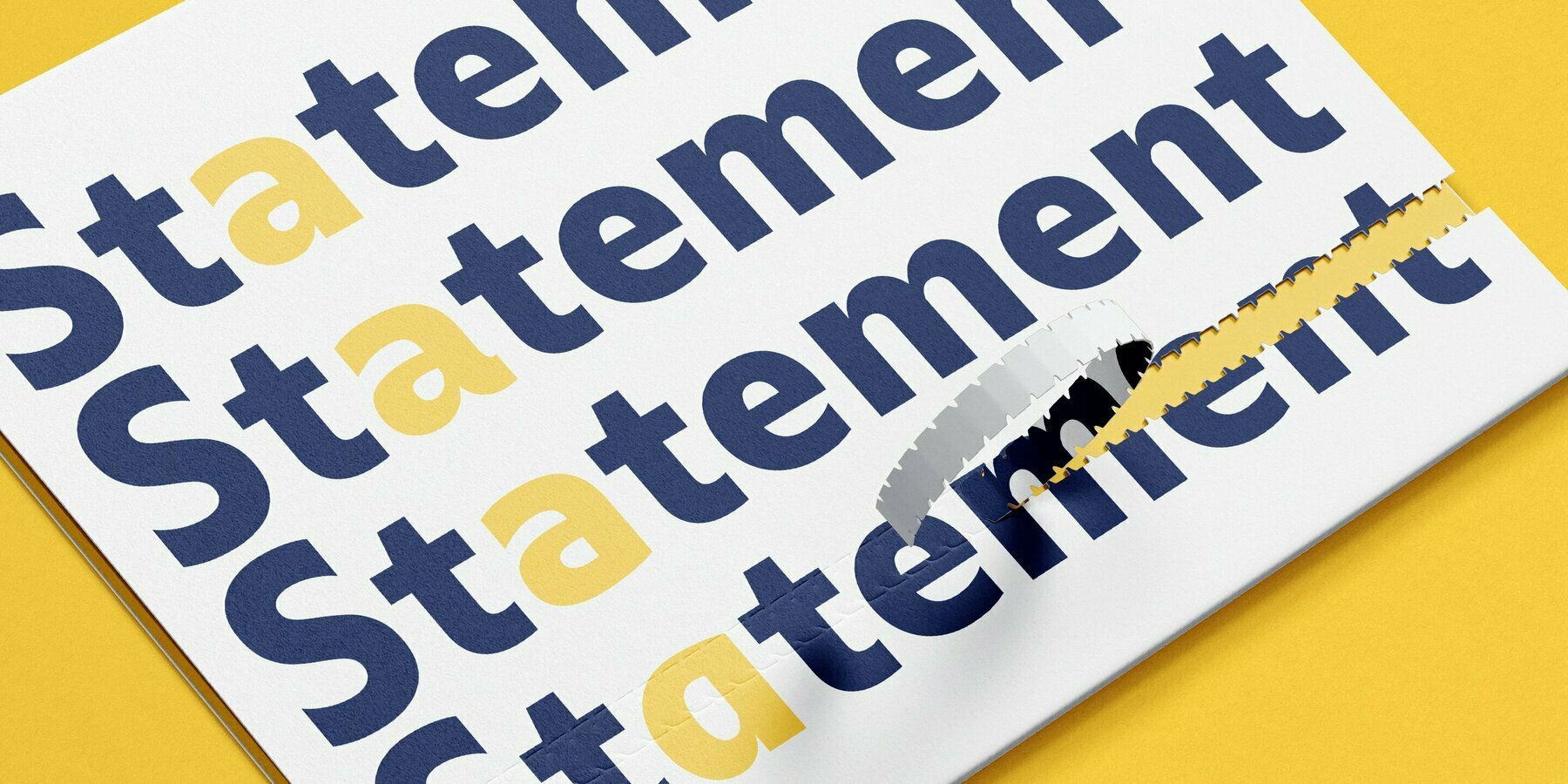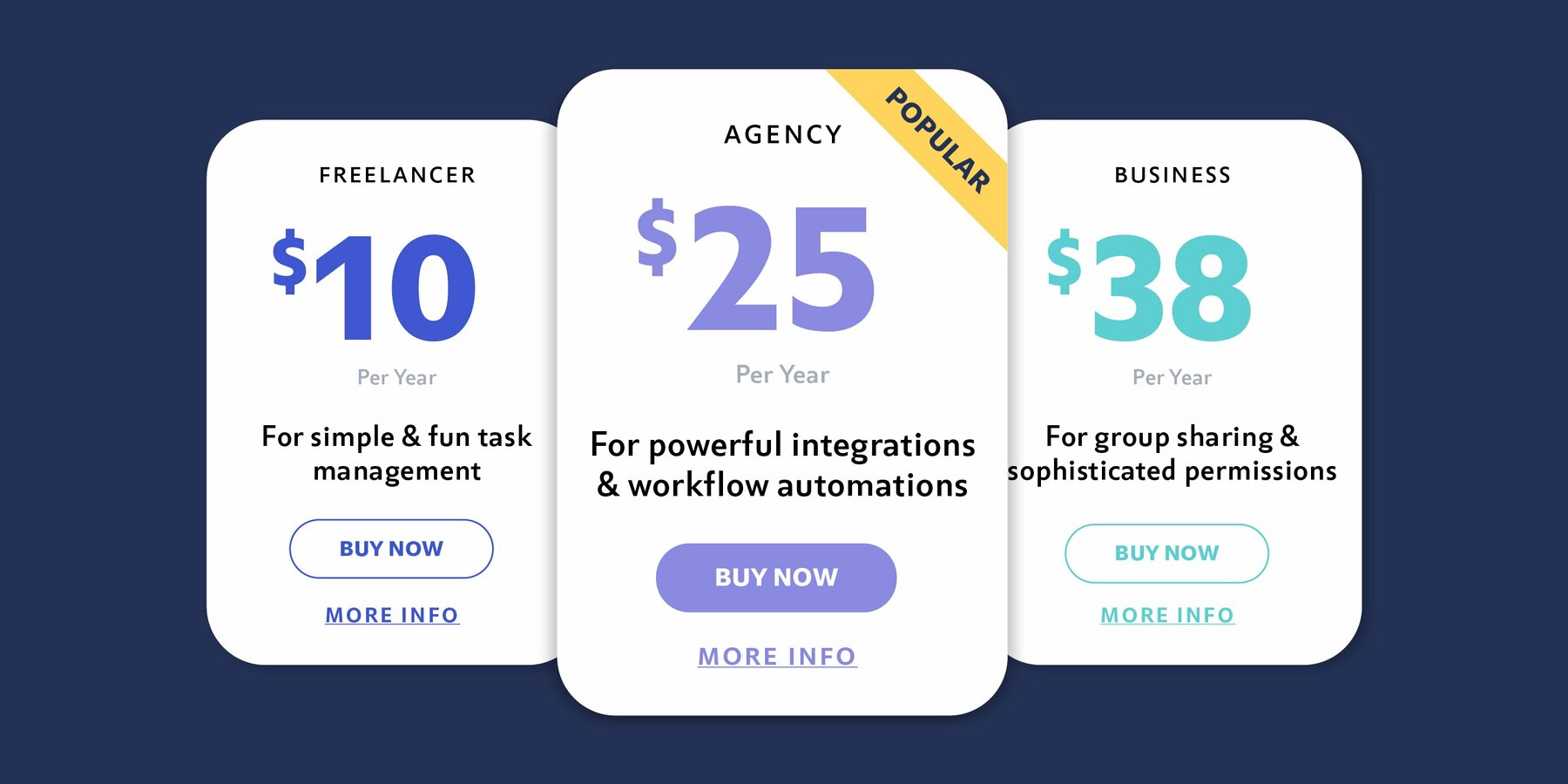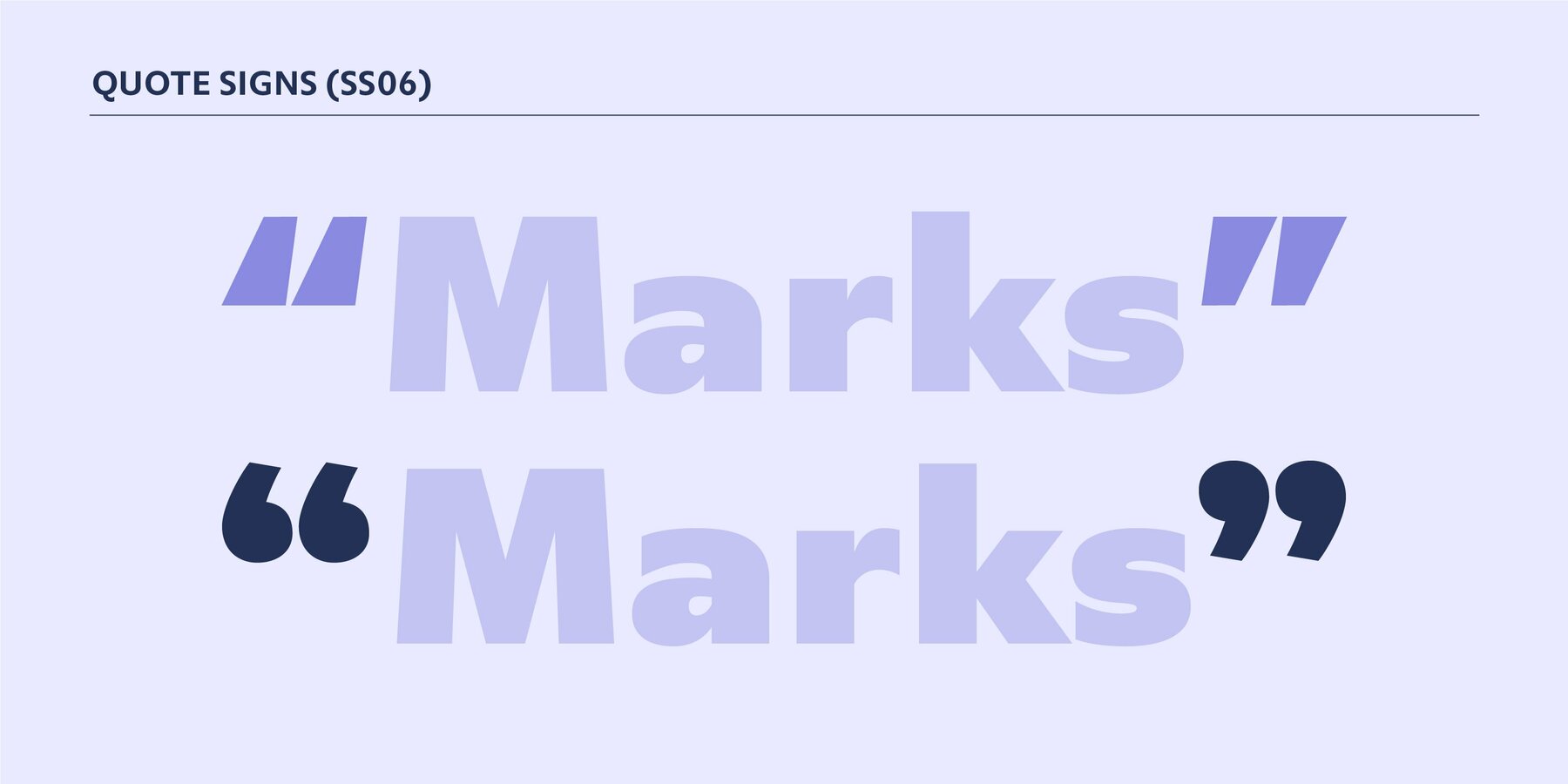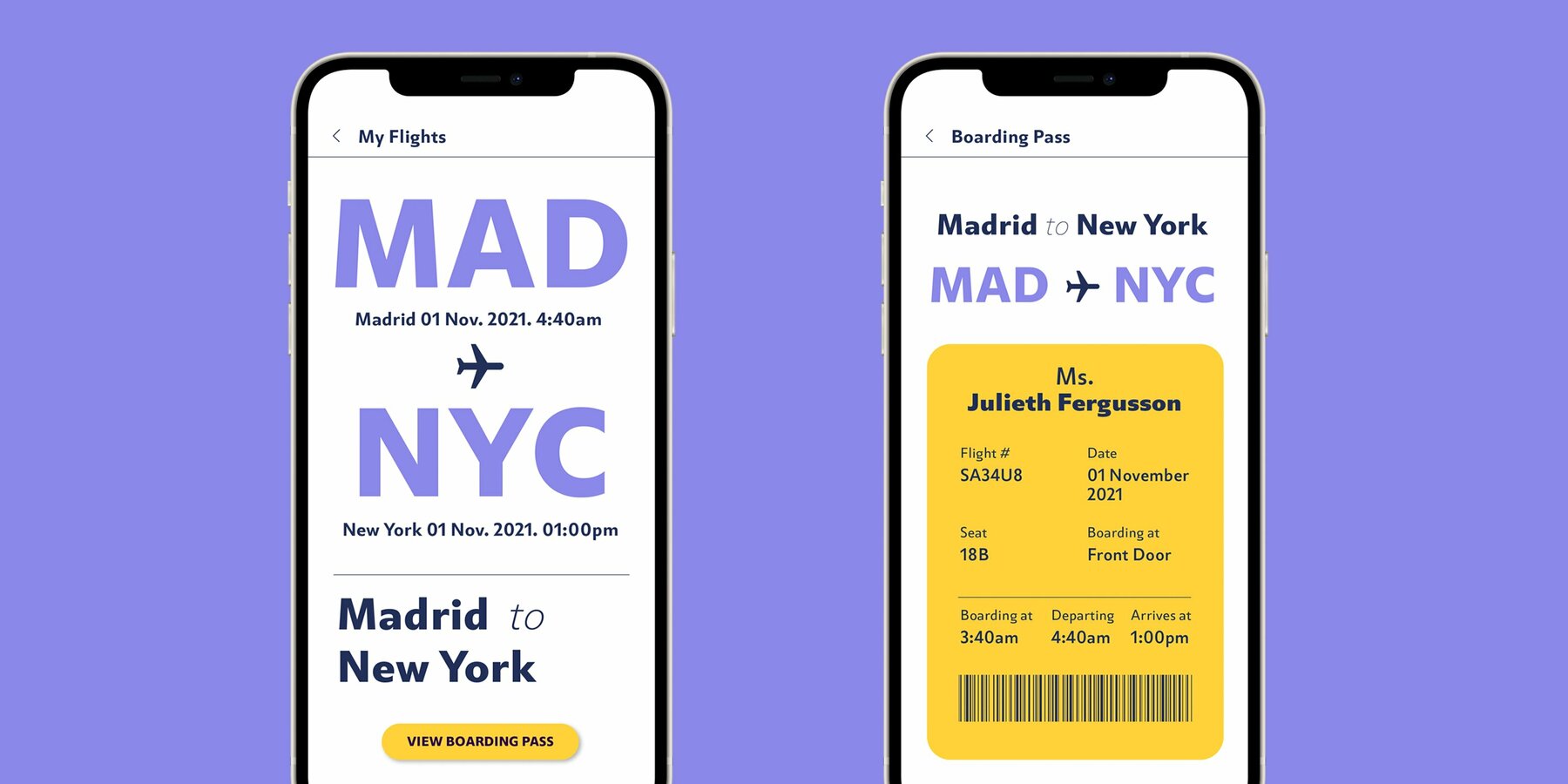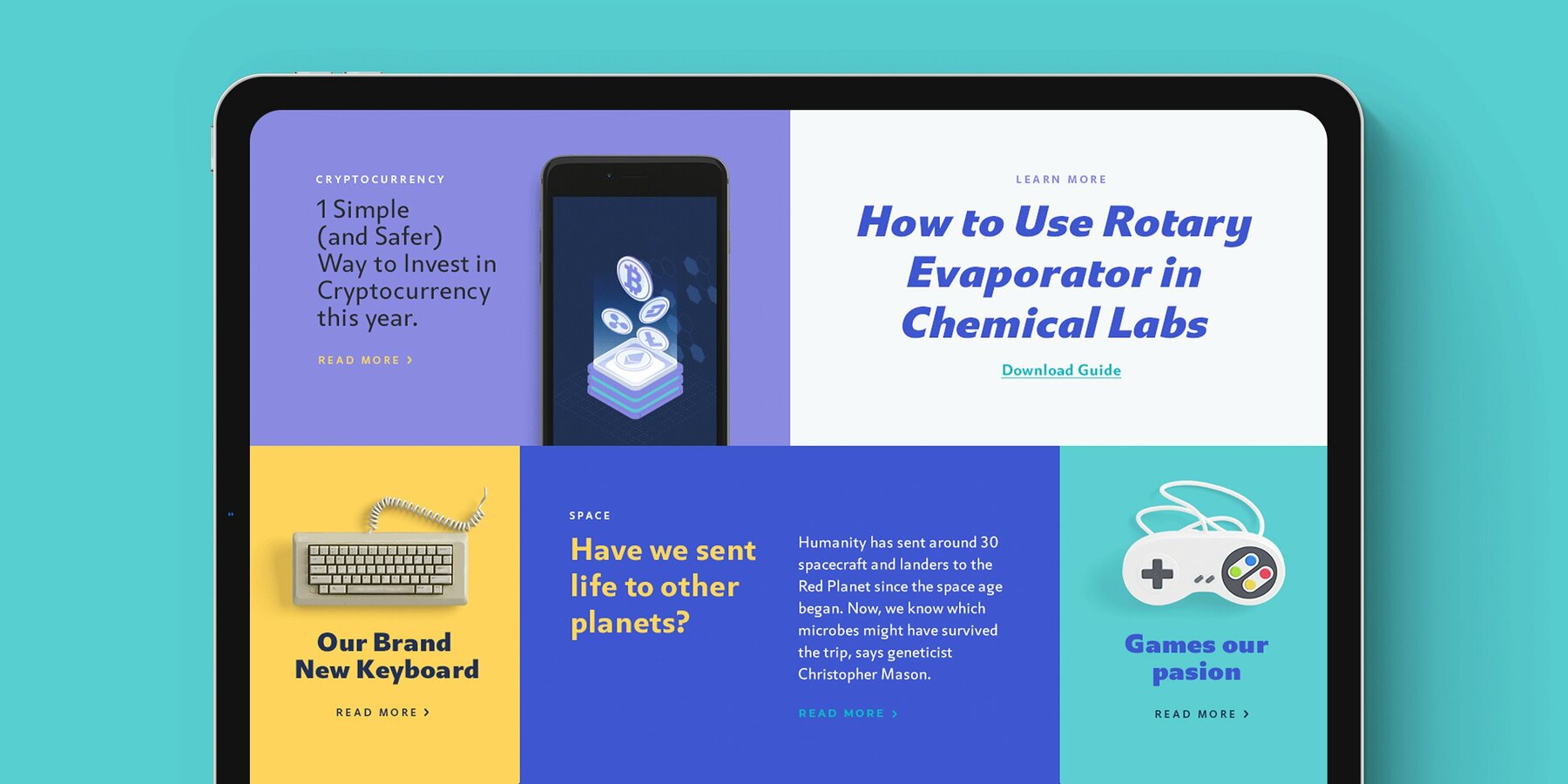
Statement Sans is a versatile sans serif font family created by the Sudtipos team in the spirit of modern neo humanistic fonts, with a deep grotesk and industrial influence that can be discovered along the system. Developed to express its potential in UX and UI projects, corporative interfaces or editorial web and print layouts, Statement is available in 9 weights with matching real italics, extended latin language support, and also including classic and old style figures as well as plenty of stylistics alternates. Last but not least, Statement Sans includes a one file variable font to join the party.